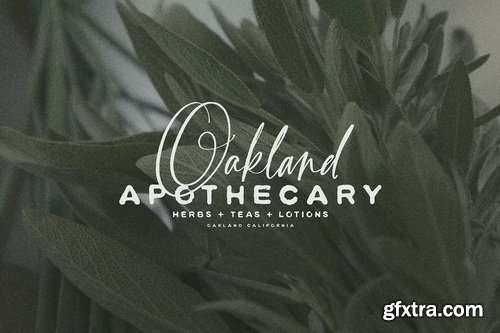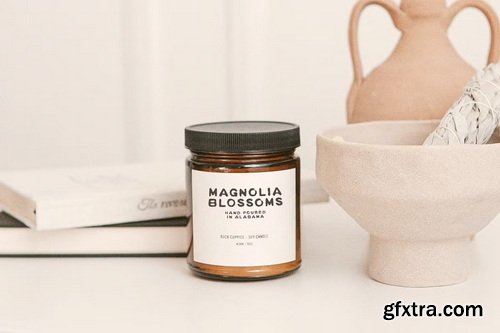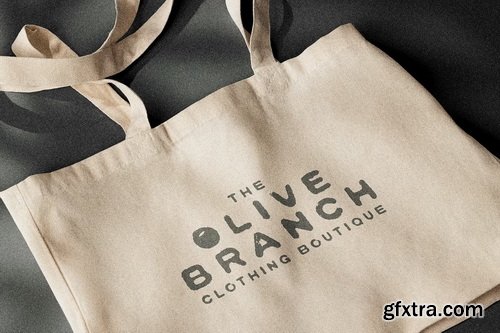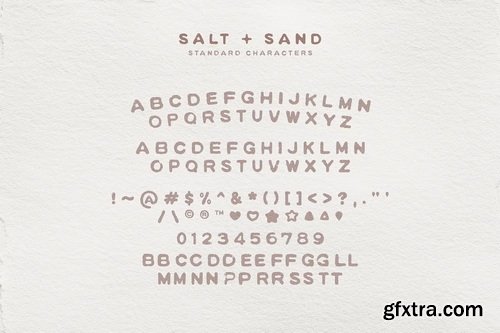
CreativeMarket - Salt And Sand Stamped Typeface
Salt + Sand is a hand-stamped serif font with built-in texture. The irregular glyphs look gorgeous on rustic designs including books, headlines, invitations, logos and more! Pair with a subtle script for a lovely compliment to wedding invitations, packaging or branding.